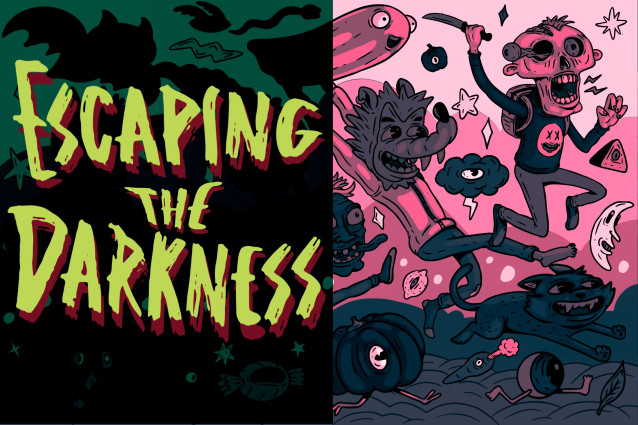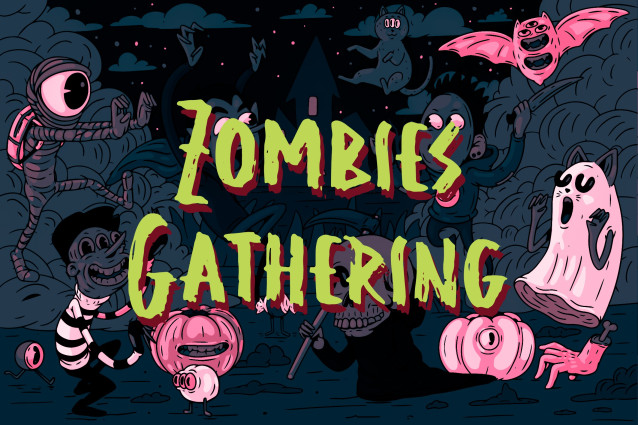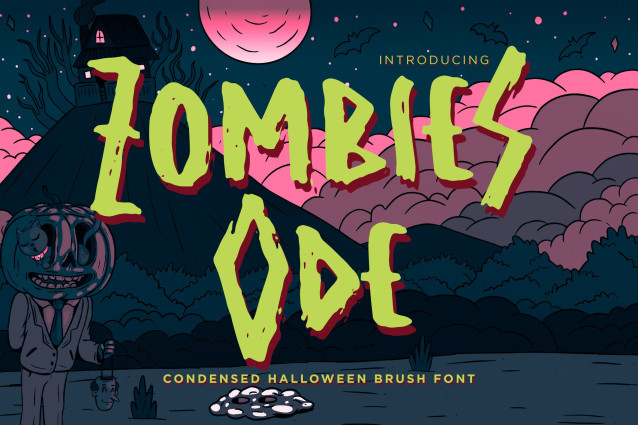
Zombies Ode Font
Zombies Ode is a spine-chilling condensed brush font perfect for all things spooky and eerie. Its hand-drawn, gritty strokes capture the essence of horror and suspense, making it ideal for Halloween-themed projects, haunted house flyers, creepy posters, eerie branding, and more. With its condensed form and distressed texture, Zombies Ode brings that perfect dose of thriller and fright to your designs.